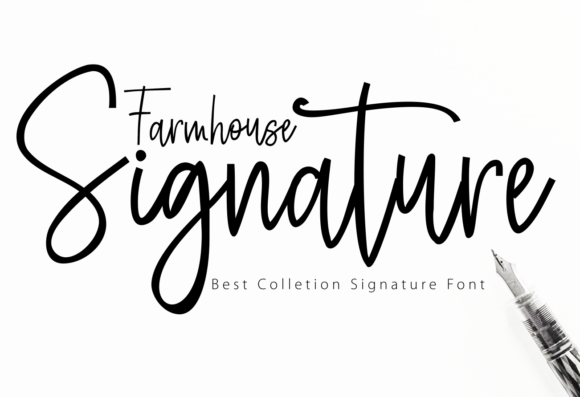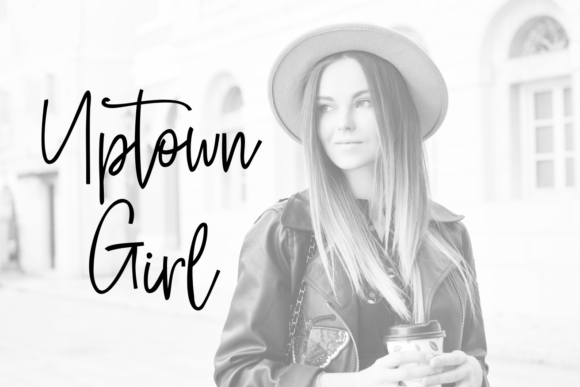
Farmhouse Signature Font
Farmhouse Signature is a sweet handwritten font that is made with great care in order to produce the expected outcomes. This font can be used for writing various kinds of products according to their respective needs.